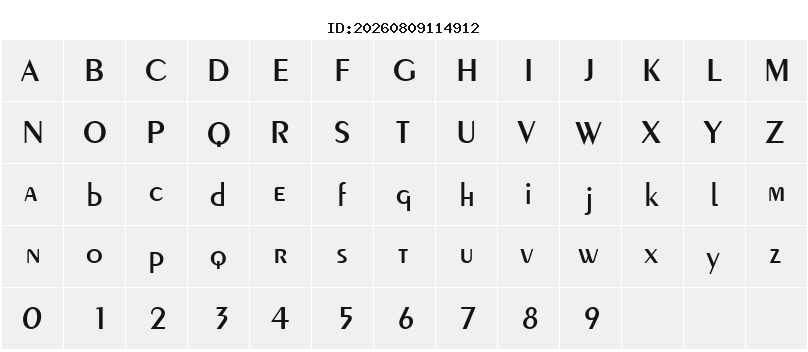
• Font Name: Peinaud
• Full Font Name: Peinaud Medium
About Peinaud.ttf
Peinaud.ttf is a modern, elegant sans-serif font designed for ultimate readability and visual harmony. Perfect for branding, headlines, web design, and print materials.